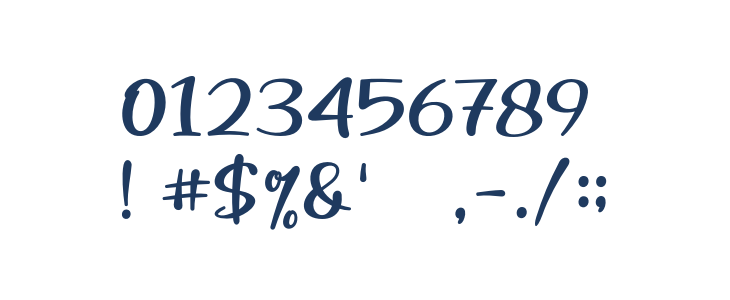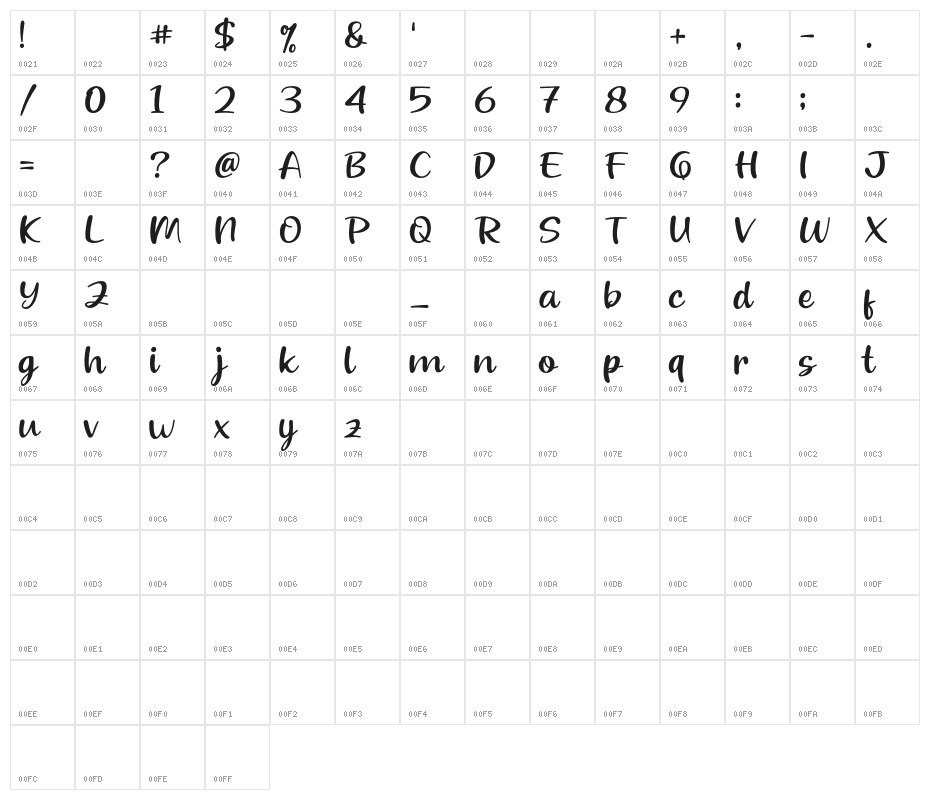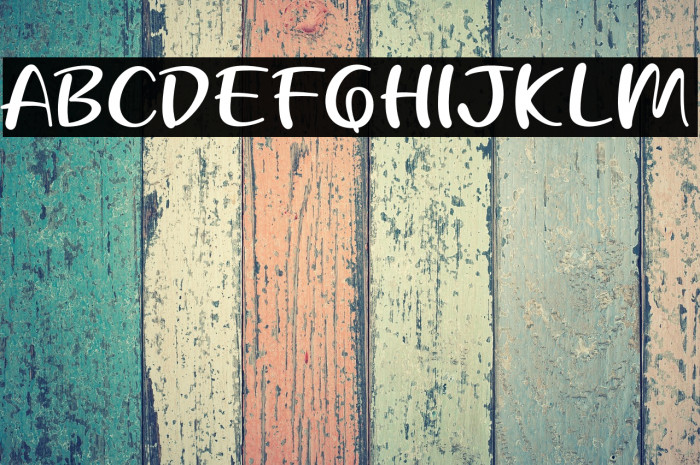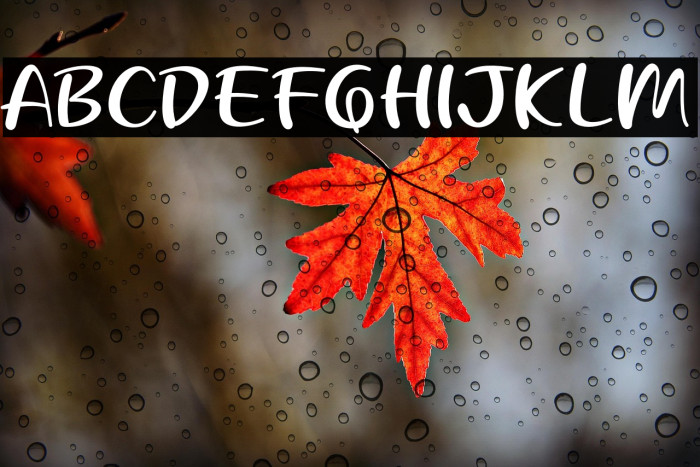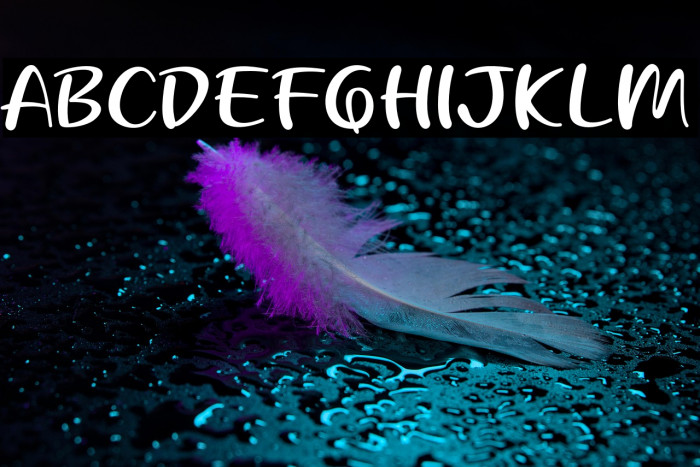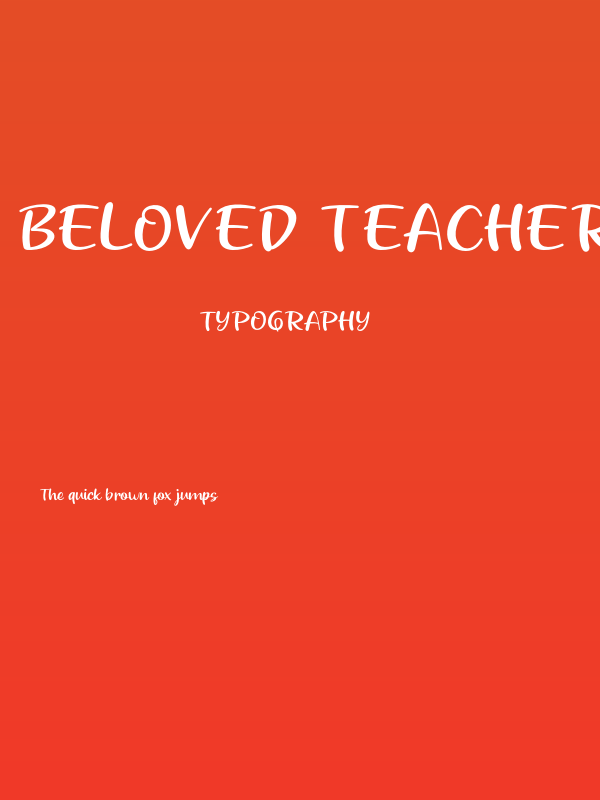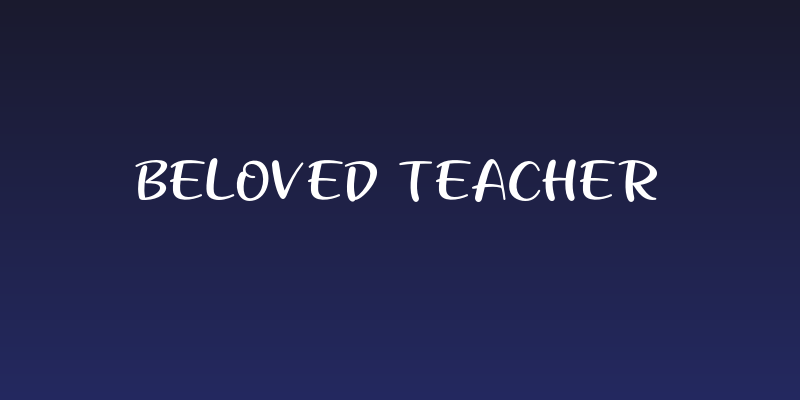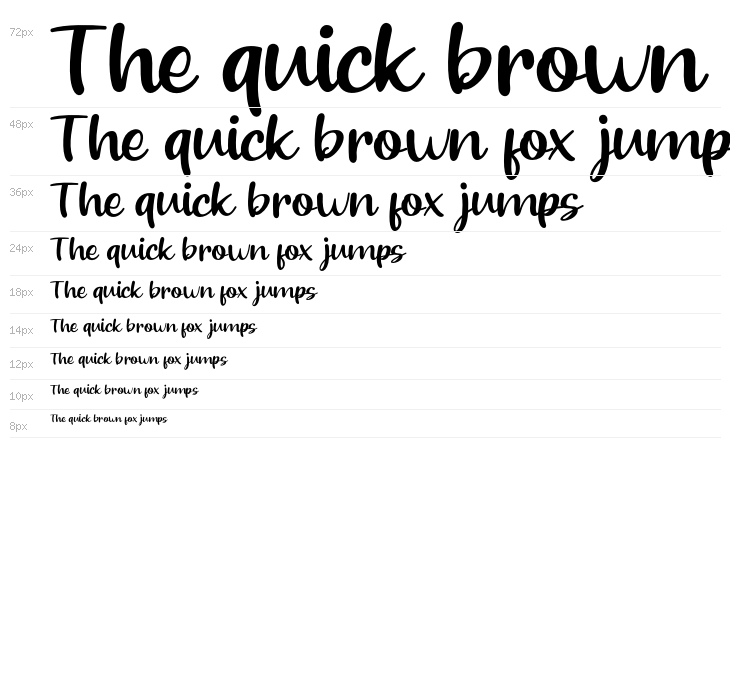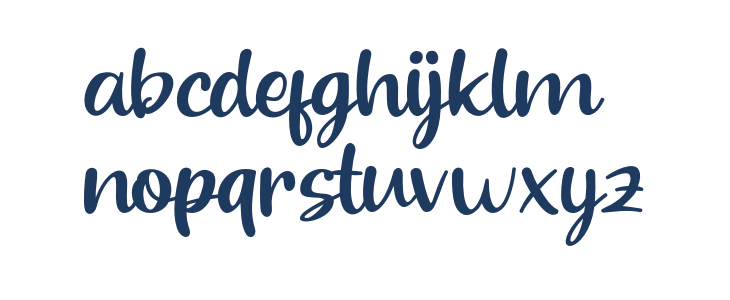
Beloved Teacher Font
Beloved Teacher Description
This font features a lively and expressive handwritten style, characterized by its fluid and dynamic strokes. The uppercase letters are bold and slightly slanted, giving a sense of movement and energy. The lowercase letters maintain a consistent flow, with some characters having unique loops and curves that add personality. The numbers are clear and legible, matching the overall playful aesthetic. Special characters are well-integrated, maintaining the font's cohesive look. This font is ideal for projects that require a personal touch, such as invitations, greeting cards, or branding materials that aim to convey warmth and approachability.
| Proposed Projects | Ideal for invitations, greeting cards, personal branding, and creative projects. |